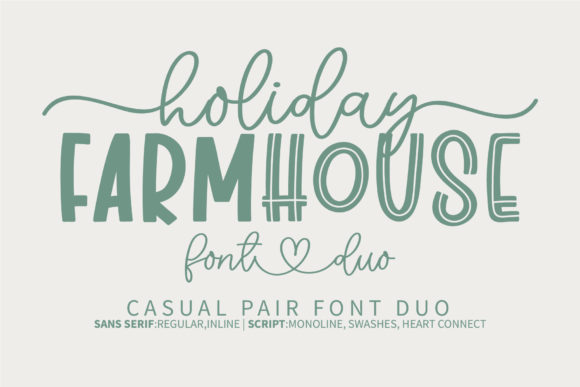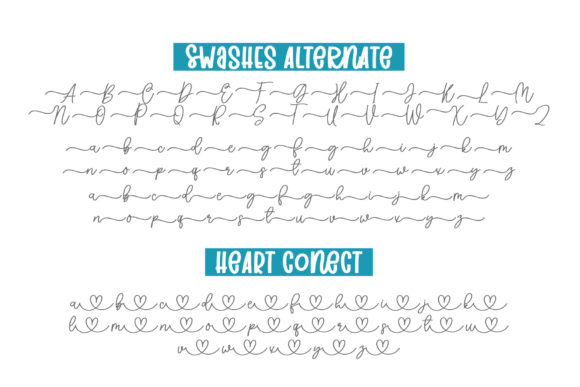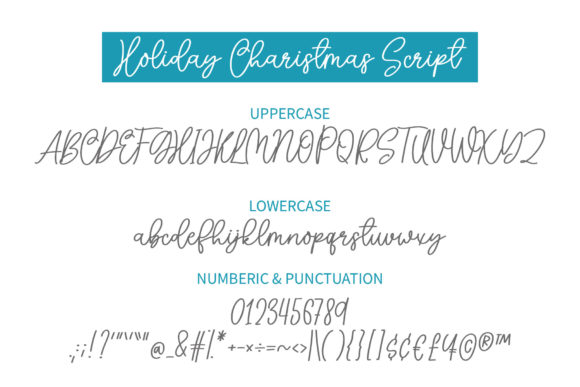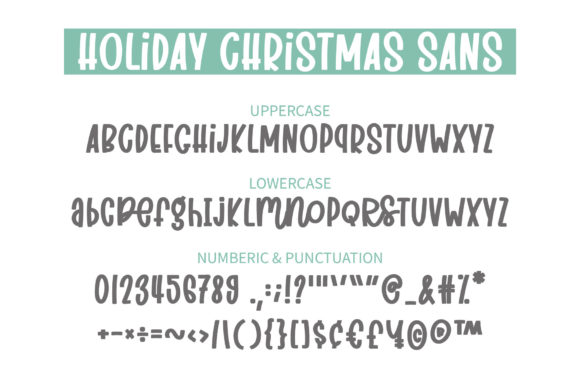
Holiday Farmhouse Font
About the Holiday Farmhouse Font
Get ready to be inspired by Holiday Farmhouse Font, a fresh and dynamic typeface for modern creators. Holiday Farmhouse is a duo-styled handwritten font that feels equally charming and delicate. Holiday Farmhouse will turn any creative idea into a standout! You can successfully use it for Christmas cards, wedding designs, local signs, branding, logos, quotes, photography projects, birthday cards, and so much more!
Its charming, delicate style makes it ideal for headlines, short text blocks on invitations or packaging, and branding projects requiring a handcrafted feel. Holiday Farmhouse excels in applications where a personal touch is desired, such as wedding stationery or small-scale signage. However, its script nature makes it unsuitable for body text or extended reading, as readability suffers in longer paragraphs.
Consider pairing Holiday Farmhouse with a clean sans-serif like Montserrat for a balanced contrast, or a playful serif font such as Playfair Display for a more cohesive, vintage feel. Geometric sans-serif fonts would also create an interesting juxtaposition, adding modern edge to the font’s rustic charm.
The overall personality of Holiday Farmhouse is friendly and approachable, yet sophisticated. It evokes feelings of warmth and nostalgia, making it a strong choice for brands aiming for a welcoming and slightly rustic aesthetic.